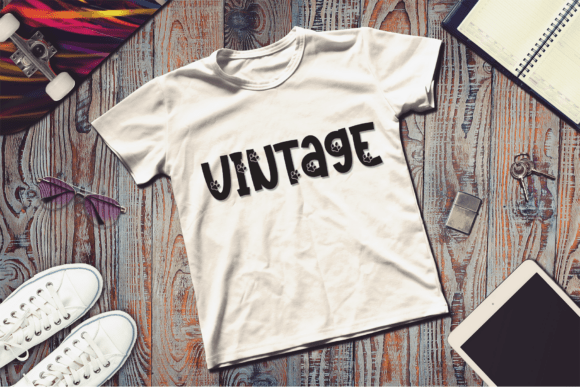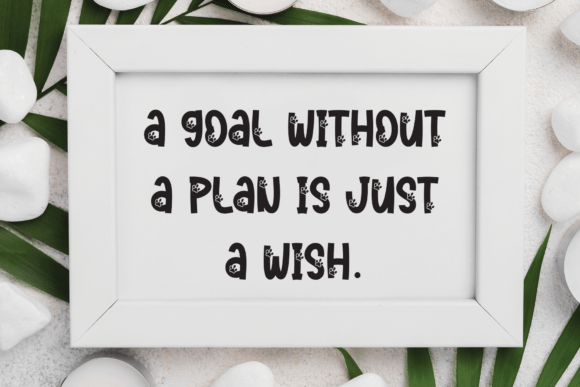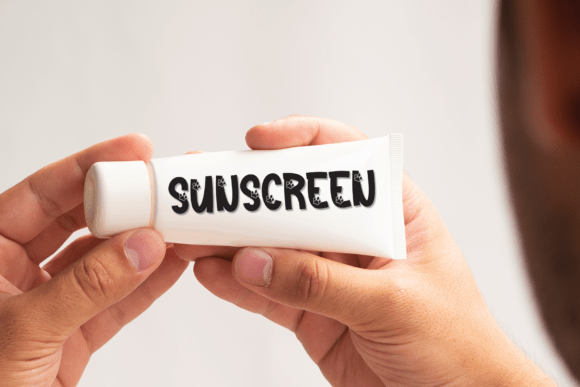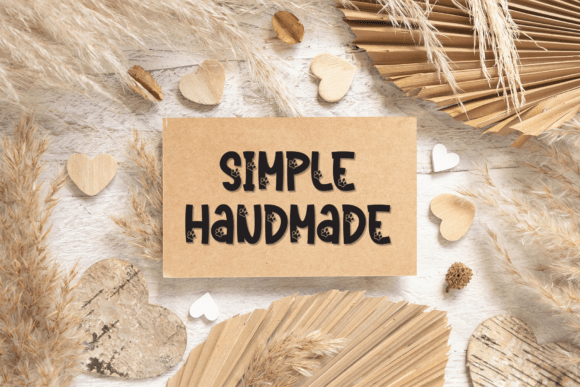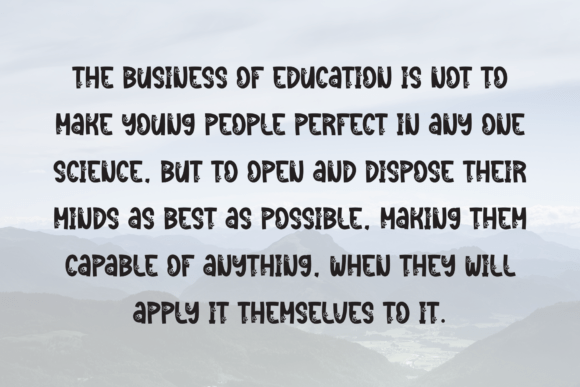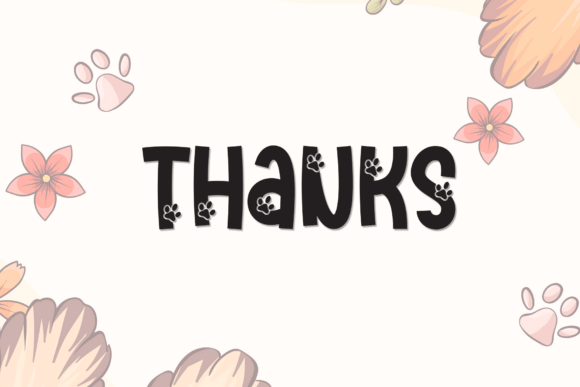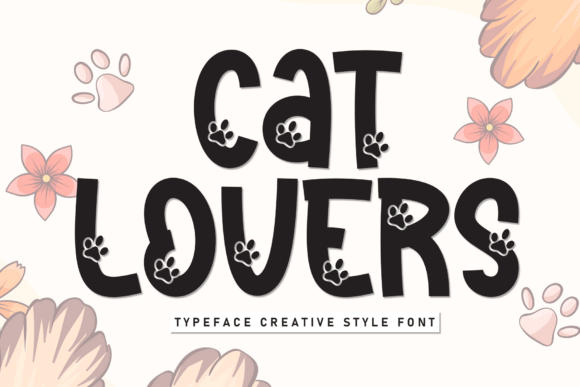
Meet the Purrfect Typeface: Cat Lovers Font
Are you a pet enthusiast, a graphic designer, or a crafter looking for a unique and playful typeface to add some personality to your designs? Look no further than the Cat Lovers Font! This delightful decorative typeface is designed specifically for pet enthusiasts and whimsical branding projects, featuring cute paw print cutouts integrated directly into the letterforms.
A Font that’s the Cat’s Meow
The Cat Lovers font is an instant hit for animal-themed products, adding a sense of personality and playfulness that resonates deeply with pet owners and children alike. Its bold and legible design makes it perfect for headlines, posters, and merchandise like pet bowls or t-shirts. Whether you’re a small business owner selling handmade pet treats or a graphic designer working on a veterinary clinic brand, this font provides the perfect blend of utility and charm.
The Cat Lovers font is incredibly versatile, making it suitable for a wide range of design projects. Here are some ideas to get you started:
- Social Media Graphics: Create eye-catching social media graphics for pet-related businesses or animal rescue organizations.
- Animal Rescue Flyers: Design informative and engaging flyers for animal rescue organizations or pet adoption events.
- Custom Stationery: Add a personal touch to your stationery or greeting cards with this adorable font.
- Merchandise: Use the Cat Lovers font to create fun and playful merchandise like pet bowls, t-shirts, or tote bags.
Perfect for Cutting Machines
The Cat Lovers font has a thick, sturdy weight that makes it very easy to use for cutting machines like Cricut and Silhouette. This ensures clean lines every time, making it perfect for crafters and designers who want to create precise and detailed designs.
Why Choose the Cat Lovers Font?
Here are just a few reasons why the Cat Lovers font is a must-have for designers and crafters:
- Unique Design: The Cat Lovers font features a unique and playful design that’s sure to stand out.
- Easy to Use: The font is easy to read and use, making it perfect for a wide range of design projects.
- Versatile: The Cat Lovers font is suitable for a wide range of design projects, from social media graphics to merchandise.
- Perfect for Pet-Themed Designs: The font is designed specifically for pet-themed designs, making it a must-have for designers and crafters who work with pet-related clients.
Tips for Using the Cat Lovers Font
Here are some tips for getting the most out of the Cat Lovers font:
- Use it for Headlines: The Cat Lovers font is perfect for headlines and titles, where its bold and playful design can really shine.
- Experiment with Colors: Try out different colors and color combinations to really make your designs pop.
- Pair it with Other Fonts: Experiment with pairing the Cat Lovers font with other fonts to create a unique and interesting design.
The Cat Lovers font is a delightful decorative typeface that’s perfect for designers and crafters who work with pet-themed designs. Its unique and playful design, combined with its ease of use and versatility, make it a must-have for anyone looking to add some personality and whimsy to their designs. Whether you’re a small business owner, a graphic designer, or a crafter, the Cat Lovers font is sure to be a hit with your audience.